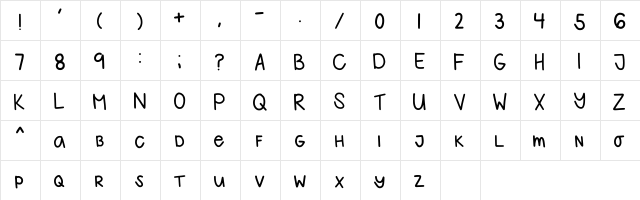
Eggy Pudding Regular
Design Context for Eggy Pudding Typeface
Eggy Pudding is a composed and adaptable typeface that performs quietly and consistently across a wide range of design contexts.